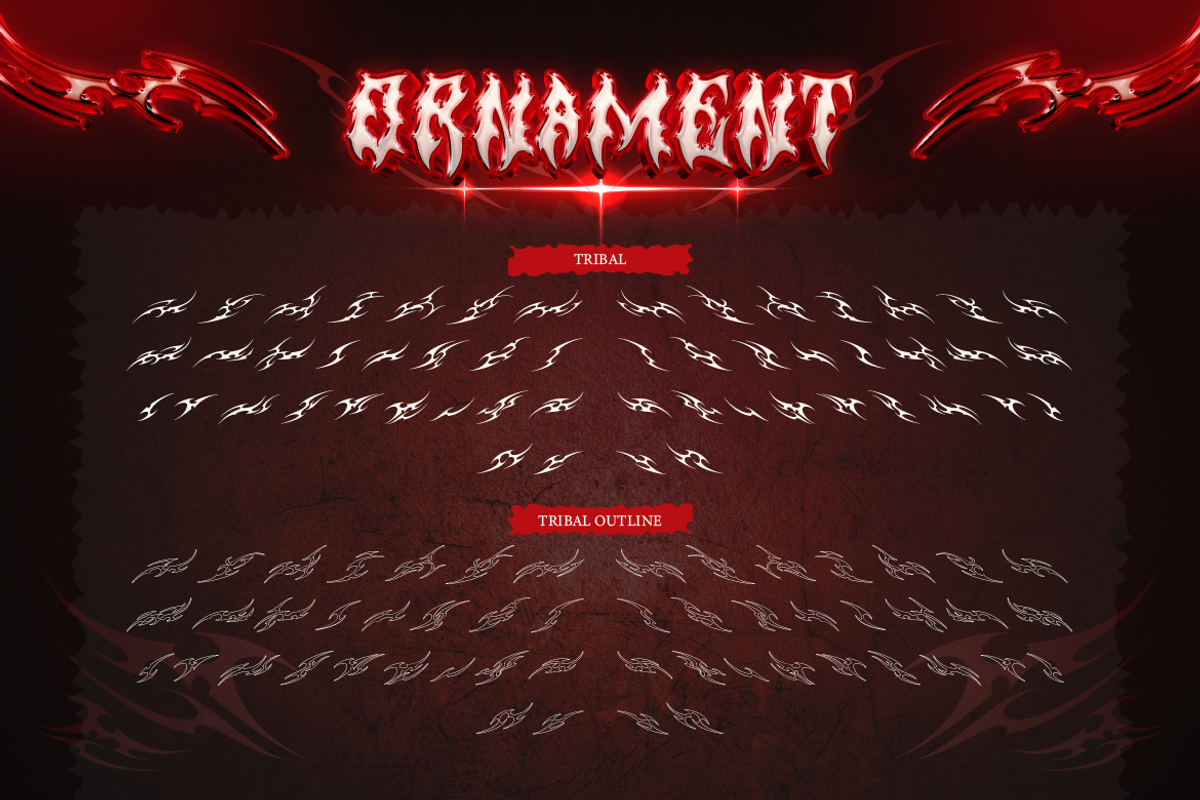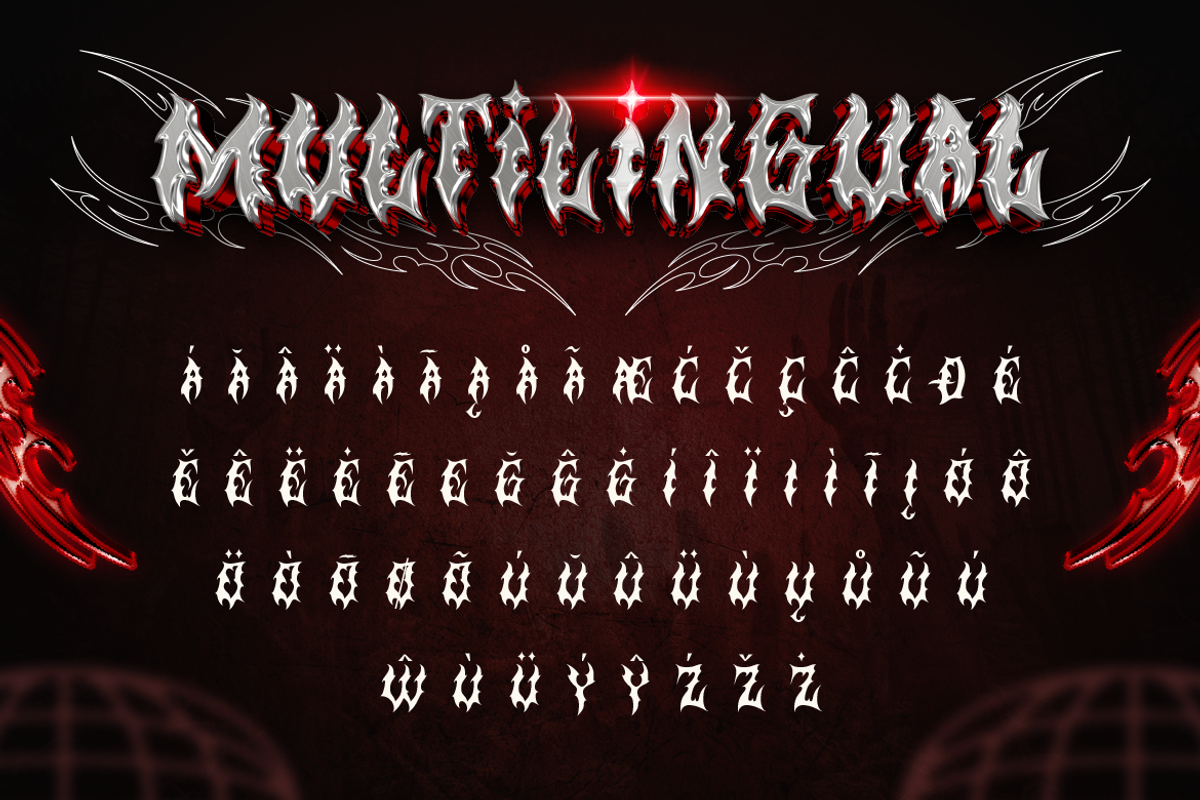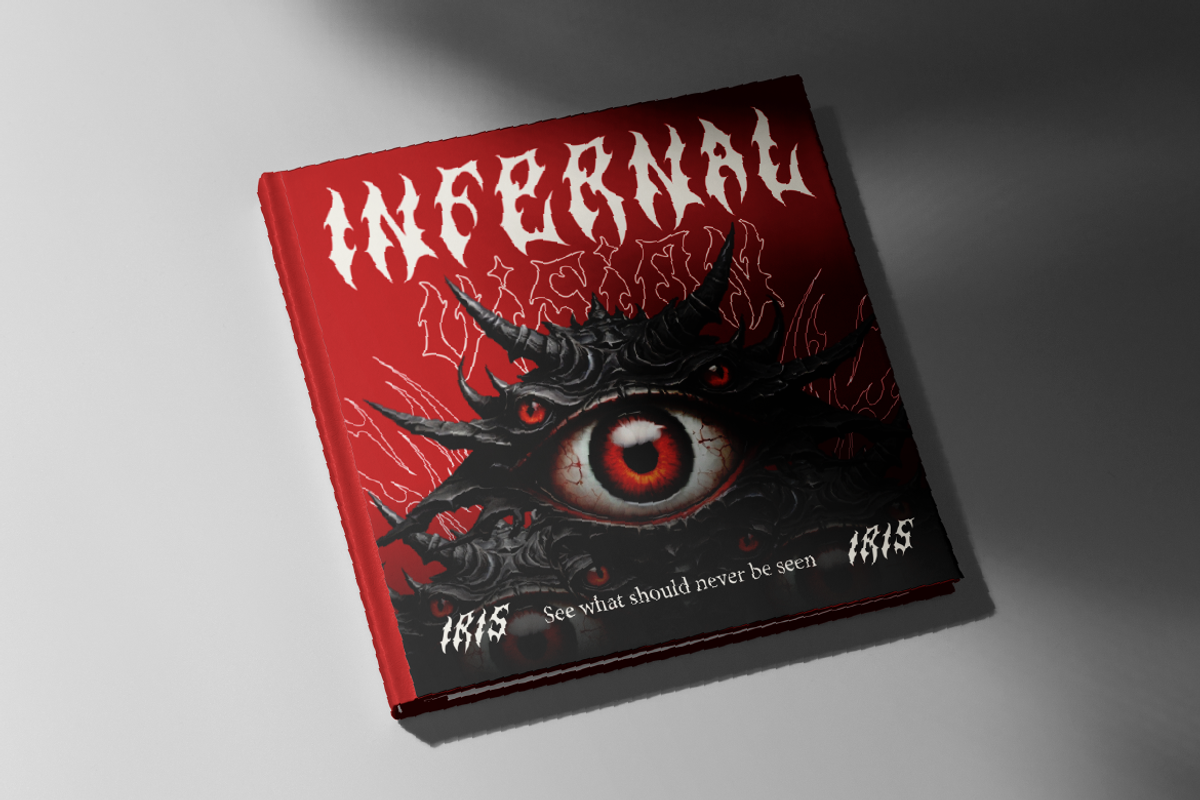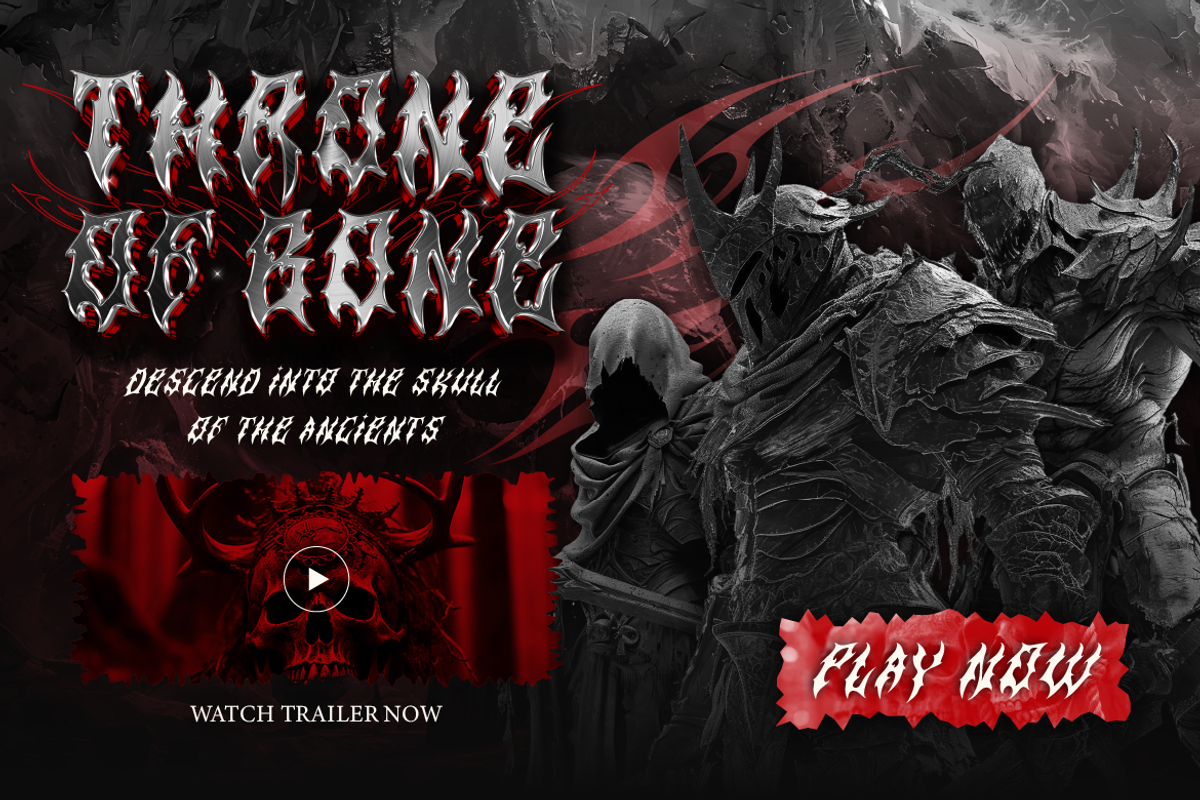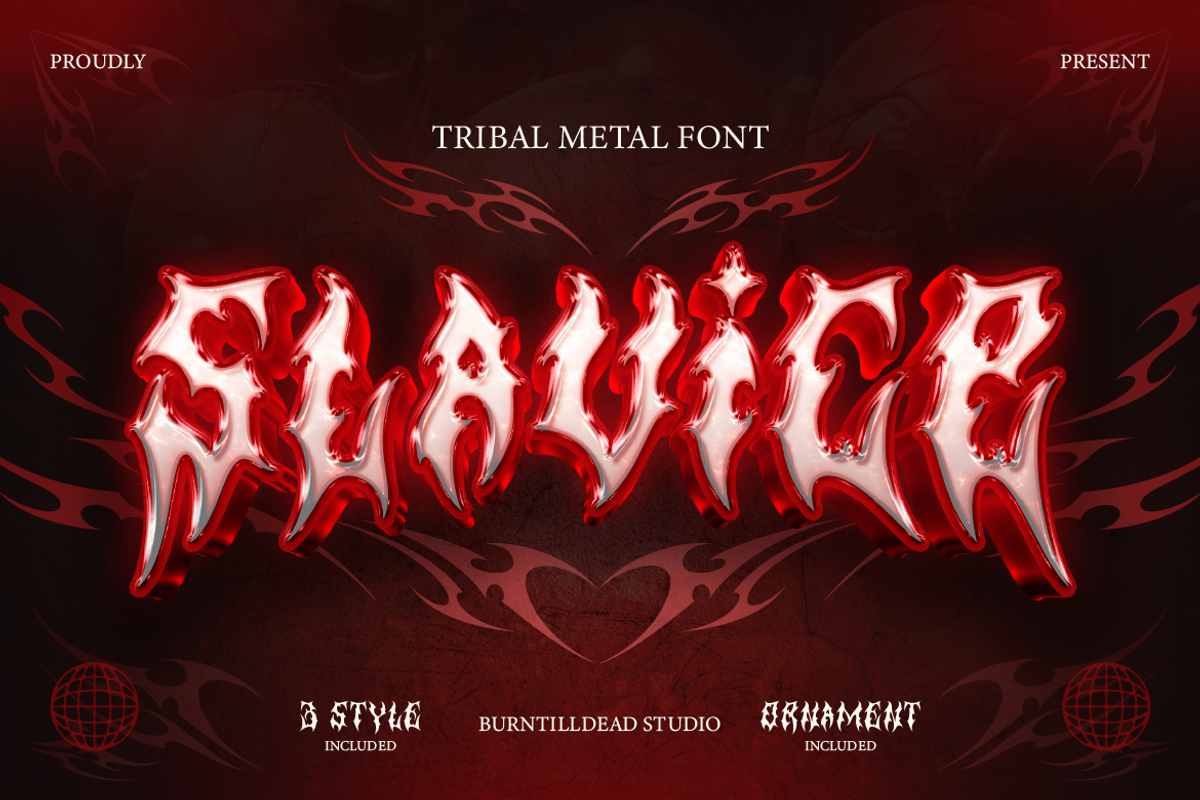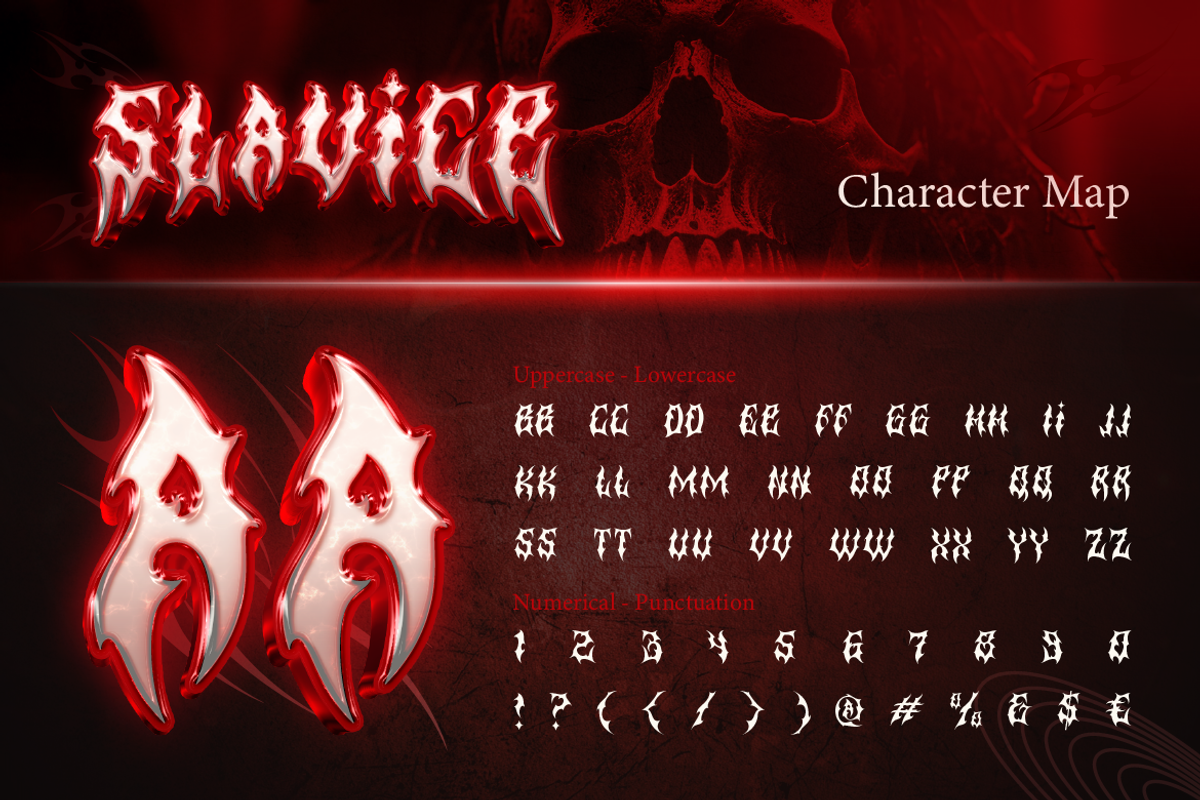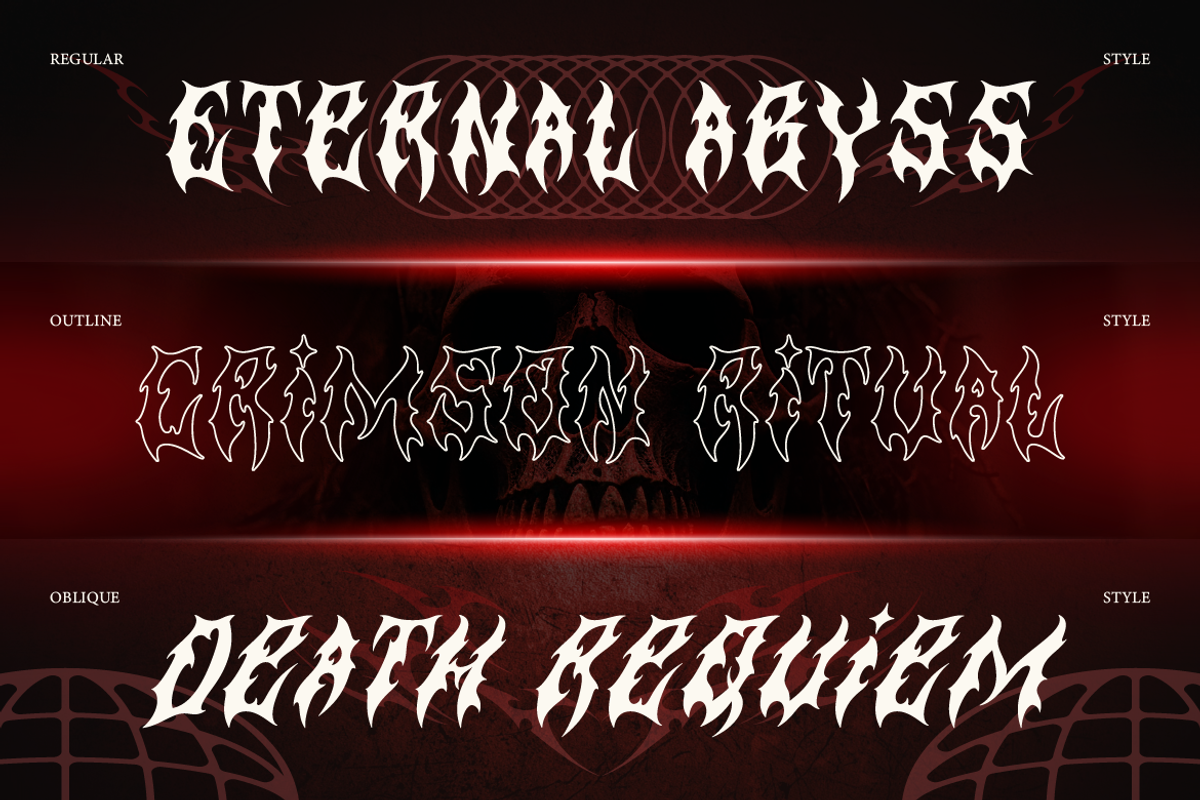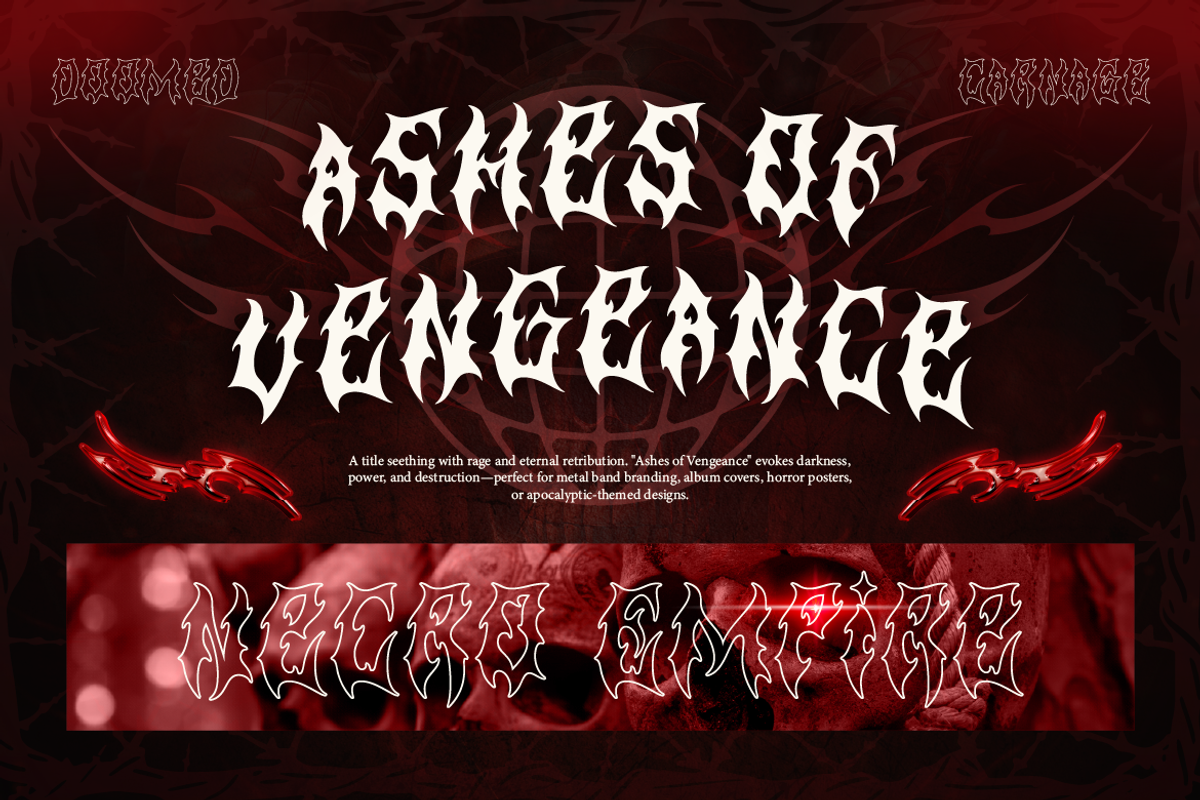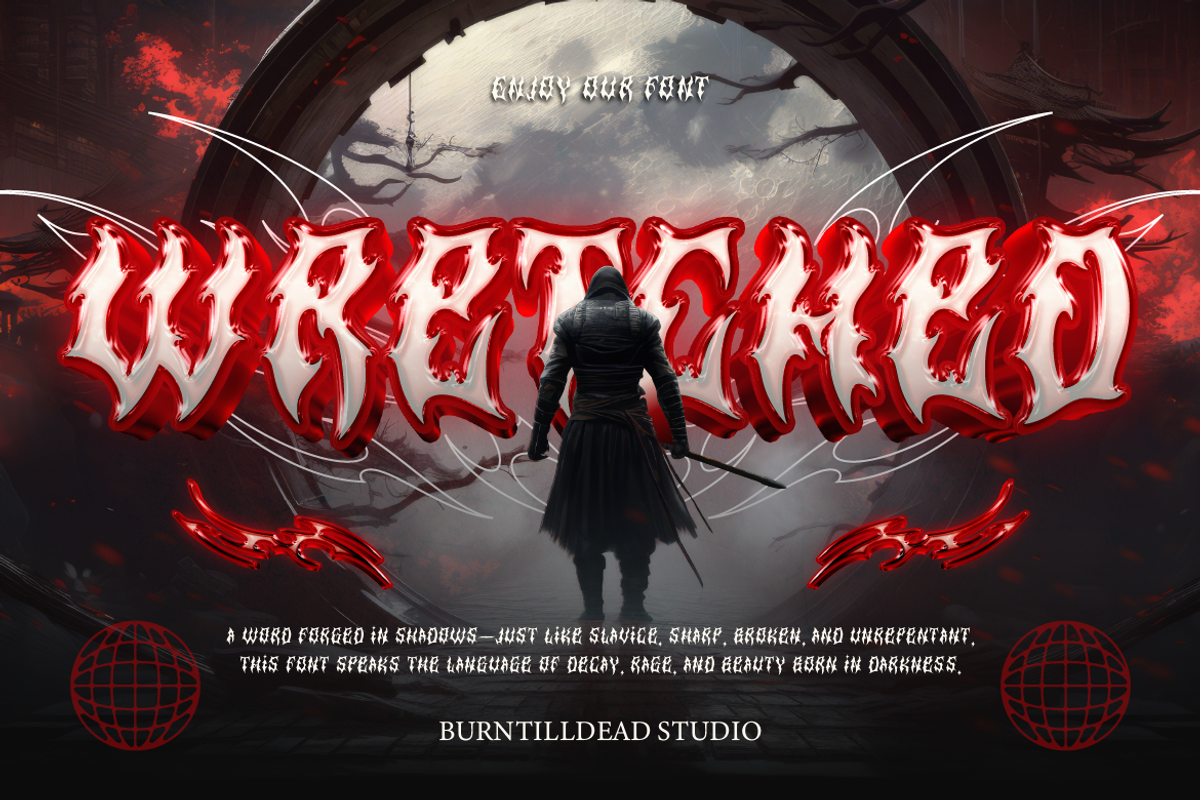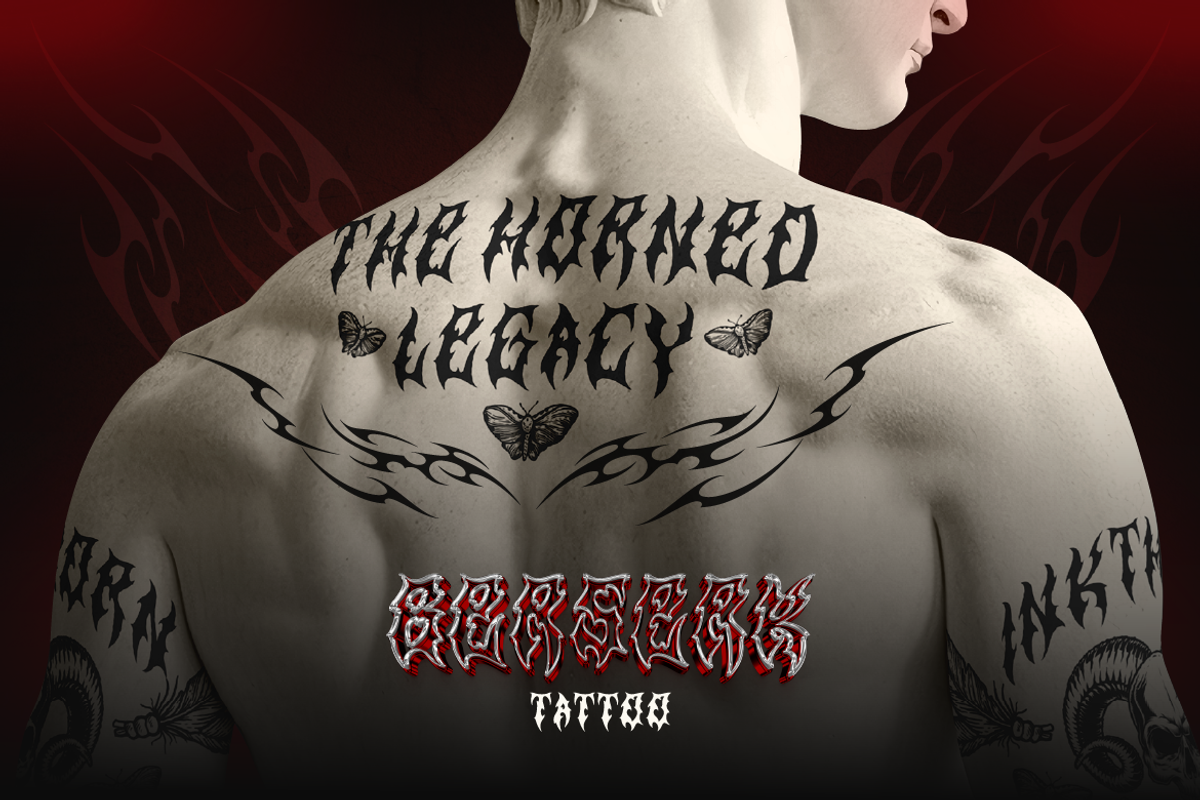
Slavice - Tribal Metal Font
Proudly Present Slavice – a tribal metal font ready to break the limits of your creativity. Designed with sharp details and wild curves, Slavice blends chaos and aesthetics into one brutal, aggressive, and masculine package. Its fierce, spiky form is heavily inspired by the iconic look of tribal tattoos. This font comes in 3 styles: Regular, Outline, and Oblique – plus 2 tribal ornament styles: Regular & Outline. Slavice is made for design projects with dark, gothic, horror, underground music themes, band merchandise, gig posters, tattoo designs, and anything that craves bold and intense energy.